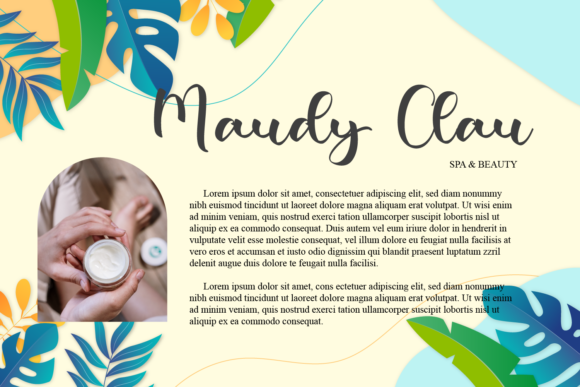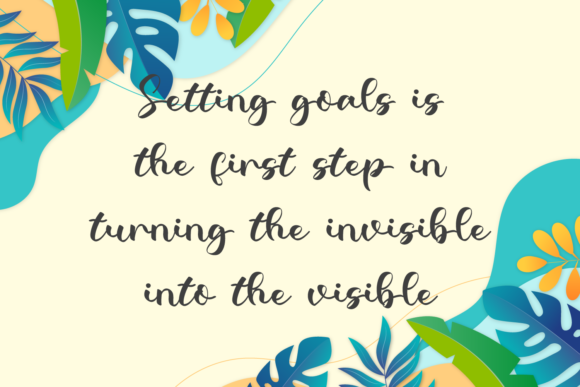
Introduction to Beatrice Maudie Font
Have you ever found yourself gazing at a beautifully handwritten love letter or a vintage postcard, mesmerized by the delicate curves and flourishes of the script? That’s exactly the kind of enchantment that the Beatrice Maudie Font embodies, making it the perfect addition to your creative project.
As a designer, you’re always on the lookout for that special something that will elevate your designs and leave a lasting impression. With its elegant and refined style, the Beatrice Maudie Font is sure to be a valuable asset in your design arsenal, allowing you to add a touch of sophistication and romance to your work.
Whether you’re working on a wedding invitation, a blog post, or a social media graphic, the Beatrice Maudie Font is the perfect high-quality design resource to download and use, thanks to its transparent background and free availability.
Key Features of Beatrice Maudie Font
- High-quality font design ideal for creative projects and designs requiring a sophisticated touch.
- Features a unique, elegant script style with subtle flair, perfect for adding a touch of sophistication to any design.
- Includes a wide range of characters, including uppercase and lowercase letters, numbers, and punctuation marks.
Honest Review: Beatrice Maudie Font
I recently had the chance to work with the Beatrice Maudie Font, and I must say it’s been a game-changer for my creative project. The free download was a huge plus, and the high quality of the font made it a no-brainer for my design needs.
- ✨ The transparent background makes it easy to use with any design resource.
- ✨ The font’s elegant and vintage vibe is perfect for any creative project that requires a touch of sophistication.
- ✨ The font is highly versatile and can be used for a wide range of design applications.
- ⚠️ The font may not be suitable for projects that require a more modern or edgy feel.
- ⚠️ The font’s vintage vibe may not appeal to designers who prefer a more minimalist aesthetic.
Overall, I’m thoroughly impressed with the Beatrice Maudie Font. Its high quality and versatility make it a valuable addition to any design library. If you’re looking for a beautiful and elegant font for your creative project, I highly recommend giving it a try.
How to Use Beatrice Maudie Font
The Beatrice Maudie Font is a high-quality, free design resource perfect for your next creative project. With its elegant and sophisticated style, it’s ideal for a variety of applications.
Getting Started with Beatrice Maudie Font
Using Beatrice Maudie Font in Popular Design Tools
You can use the Beatrice Maudie Font in a variety of design tools, including:
Tips for Getting the Most Out of Beatrice Maudie Font
To get the most out of the Beatrice Maudie Font, use it in conjunction with other design elements, such as graphics and images, to create a visually appealing design. Experiment with different font sizes and styles to add emphasis to your text.
Common Use Cases for Beatrice Maudie Font
The Beatrice Maudie Font is ideal for a variety of use cases, including:
- Business cards and marketing materials
- Personal projects and creative endeavors
Alternatives to Beatrice Maudie Font
1. Whimsy Script
Whimsy Script is a high-quality, cursive font perfect for creative projects that require a touch of elegance. It’s available for free download and features a transparent background, making it easy to use in various design settings. Use Whimsy Script for wedding invitations, birthday cards, or any project where a romantic feel is needed.
Whimsy Script compares to Beatrice Maudie Font in its elegant and cursive nature, but it lacks the vintage feel of the original font.
Great Vibes is a modern, handwritten font ideal for creative projects that need a fresh and youthful touch. It’s a high-quality font with a transparent background, available for free download. Use Great Vibes for social media graphics, blog posts, or any project where a fun and energetic vibe is required.